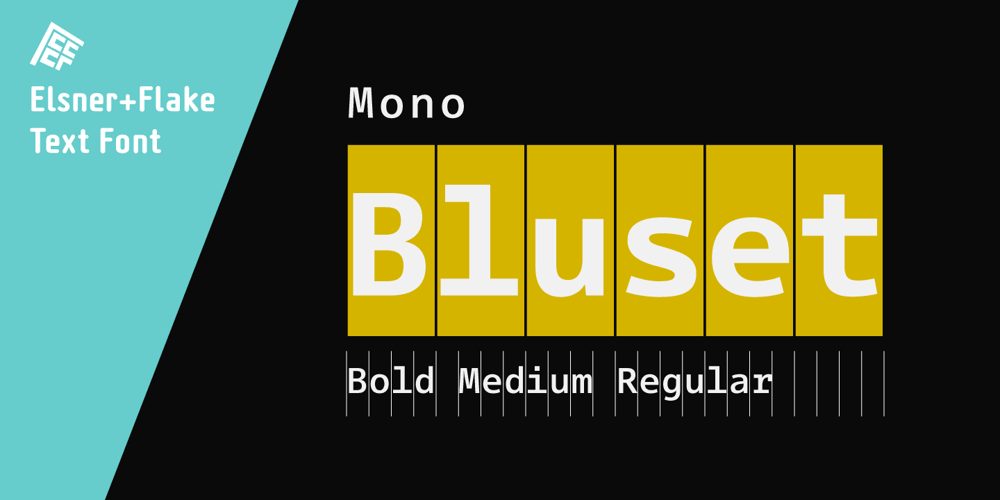
Bluset Now Mono Font Family was designed by Günther Flake and published by Elsner+Flake. Bluset Now Mono contains 6 styles and family package options. Bluset Monospaced enlarges the re-worked and expanded text- and headline typeface family Bluest Now with 6 new cuts. The concept for Bluest Now was based, in its original form, on a corporate design typeface by Elsner+Flake in 2004, ordered by the Landor Agency for a large German energy corporation. Regularly re-worked and brought up to modern standards, the typeface is still used to this day. Because of its large x-height and its well-balanced appearance, Bluset Now Mono is also excellent for use in small typesizes. The three Roman cuts, Regular, Medium and Bold, and the corresponding obliques, allow a clear differentiation of base- and display applications for every typesize. The character complement has been created for 72 Latin-based language areas and thus allows a neutral text exchange across language borders. Translation Inga Wennik